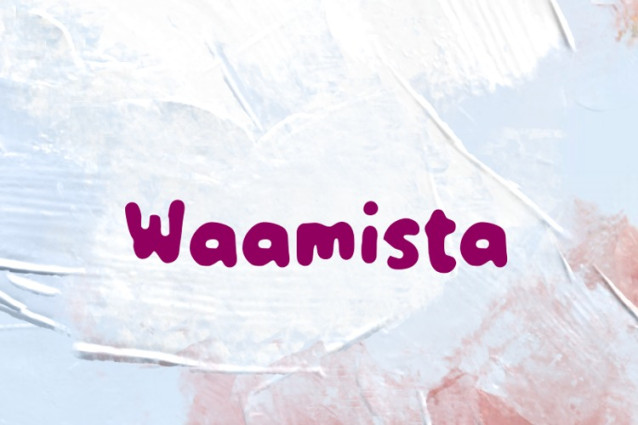
Waamista Font
Waamista Font , perfectly fit for branding, logo, wedding things, greeting cards, fashion, lookbook, marketing promotion, anytime you want to look fancy elegant but still casual.